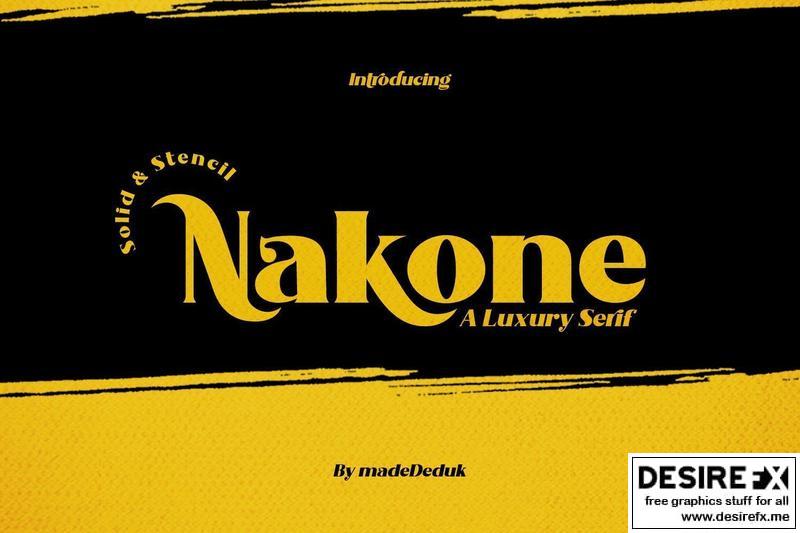
Nakone Font W7MX6SB
Nakone is a luxury bold Serif with two style solid and stencil font files. A lot of stylish alternates will makes this font suitable for your any your project design.